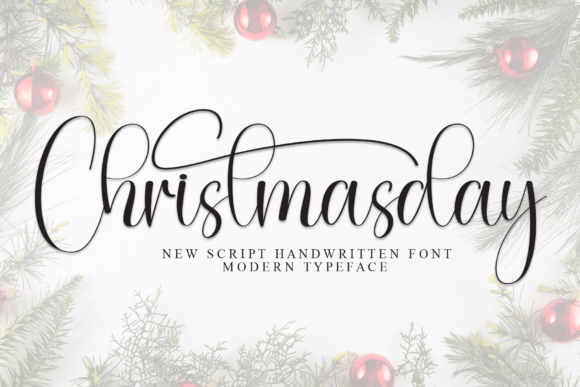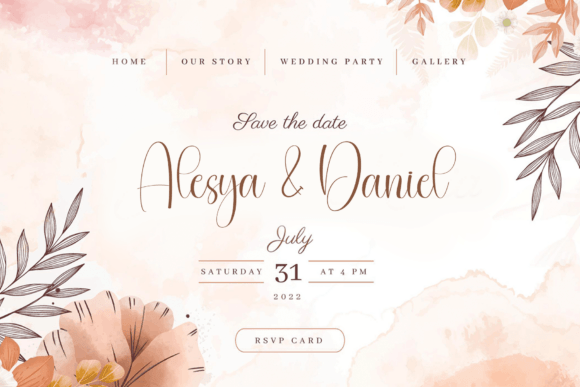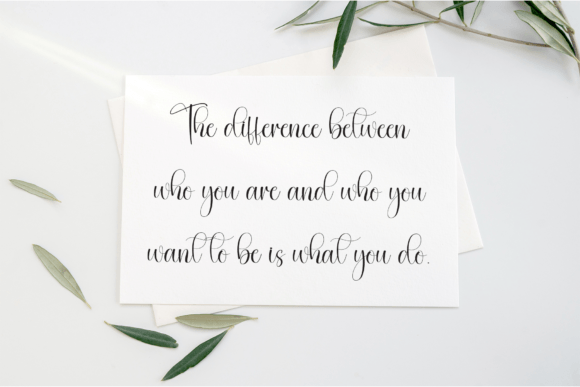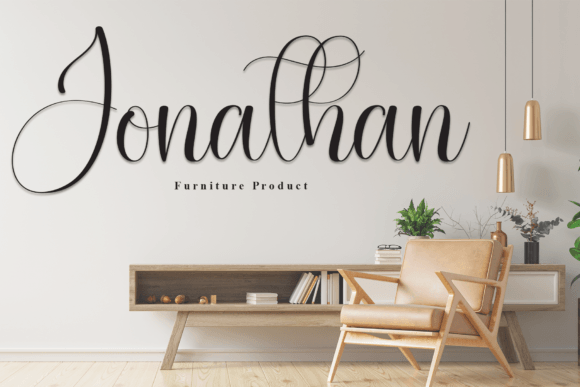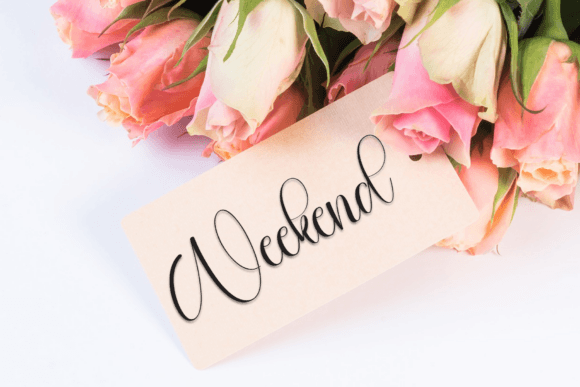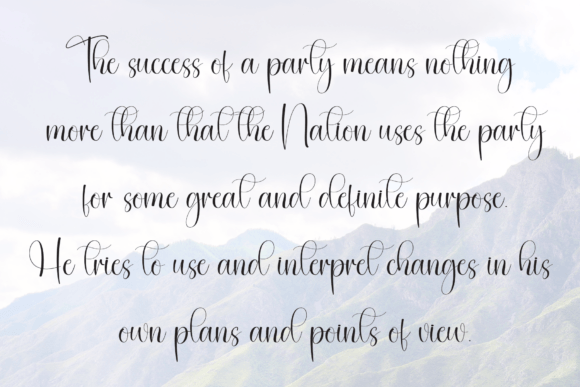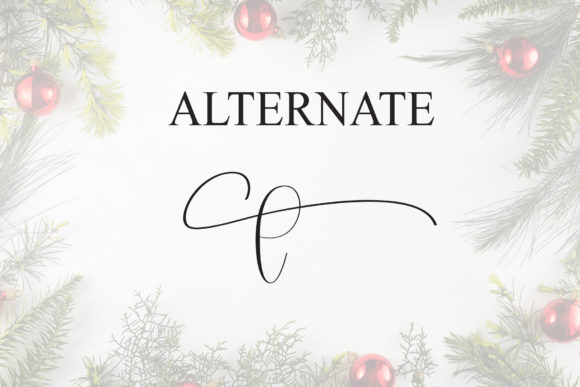
The Magic of Christmasday Font: Elevate Your Designs This Holiday Season
As you sit surrounded by twinkling lights and the scent of pine, you get that spark of inspiration – a creative idea that you just can’t wait to bring to life. Whether it’s a festive holiday card, a social media post, or a handmade gift, you know that the right font can make all the difference.
Enter the enchanting Christmasday Font, a beautifully crafted script font that adds a touch of elegance to any design. With its delicate flourishes and whimsical charm, this font is perfect for Instagram-worthy graphics, DIY projects, and any other creative endeavor that requires a dash of magic. For designers, the Christmasday Font is a valuable asset, offering a unique and versatile tool to elevate their designs and make them truly unforgettable.
Key Features of Christmasday Font
- Font Family: Christmasday Font is a unique, hand-drawn font designed to evoke the spirit of Christmas. It comes in a single font family.
- Unique Characteristics: Christmasday Font features a distinctive, whimsical design with intricate details and ornaments, making it perfect for creating festive and holiday-themed designs.
Designer Review: Christmasday Font
As a designer, I was excited to dive into the Christmasday Font and see if it lives up to its festive name. Here’s my honest review.
- Unique and playful design: The font’s irregular shapes and bold lines give it a fun, celebratory feel that’s perfect for holiday designs.
- High-quality glyphs: The font includes a wide range of characters, including punctuation and symbols, which are all beautifully crafted.
- Flexibility: The font comes in multiple weights and styles, making it easy to adapt to different design needs.
- Limited language support: Unfortunately, the font only includes Latin characters, which may limit its use for non-English designs.
Overall, the Christmasday Font is a fun and creative choice for holiday designs. While it has some limitations, its unique design and high-quality glyphs make it a great option for designers looking to add some festive flair to their work.
Getting the Most Out of the Christmasday Font
Here are some tips to get the most out of the Christmasday Font:
- Use it for festive designs and holiday-themed projects
- Combine it with other festive fonts for a unique look
- Experiment with different font sizes and colors to create a visually appealing design
The Christmasday Font is commonly used for:
- Holiday greeting cards and invitations
- Festive social media posts and graphics
- Christmas-themed logos and branding
Alternatives to Christmasday Font
Bellissima Script
Bellissima Script is a beautiful, elegant script font that can be used for various festive designs, invitations, and holiday greetings. It’s perfect for creating a sophisticated and luxurious feel. Compared to Christmasday Font, Bellissima Script has a more refined and sophisticated look, making it suitable for high-end designs.
Carolyna Pro is a modern, handwritten font that can be used for a wide range of designs, from invitations to social media graphics. It’s perfect for creating a fun and playful feel. Compared to Christmasday Font, Carolyna Pro has a more casual and relaxed look, making it suitable for younger audiences.